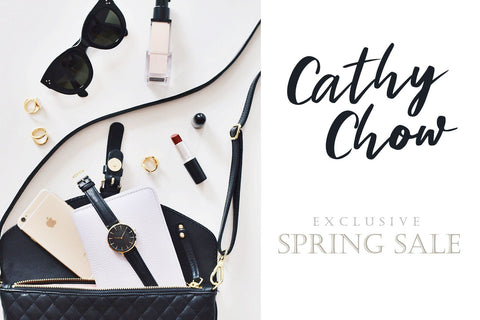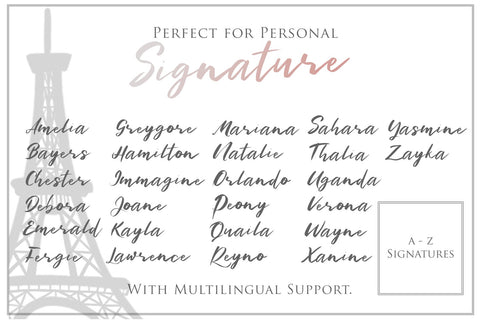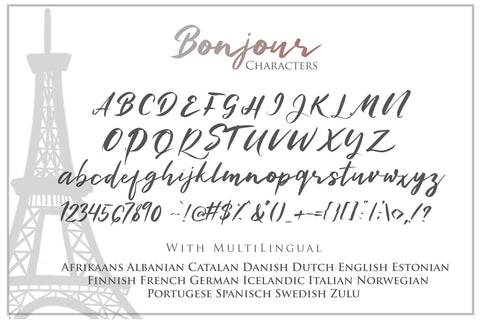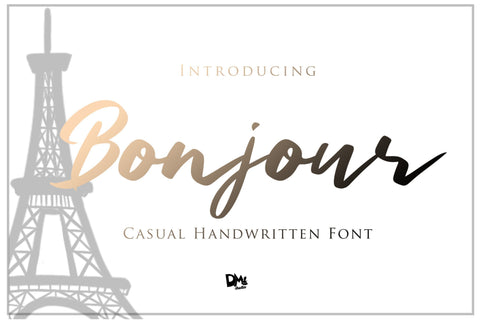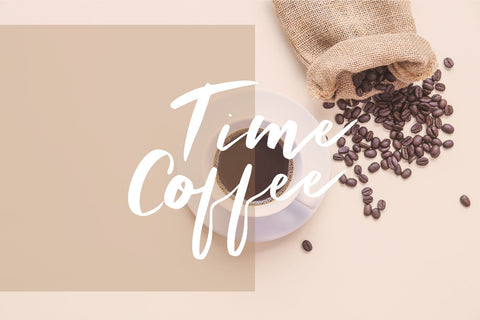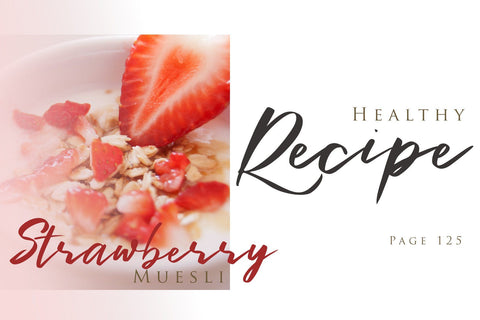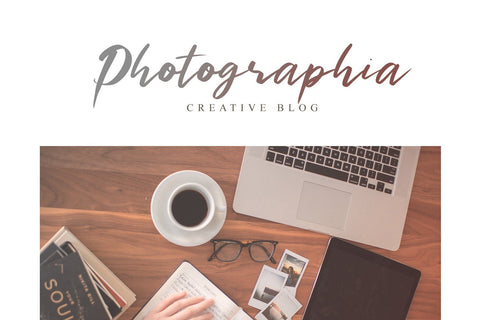
Bonjour - Casual Handwritten Font
Bonjour ! is a natural, simple and casual handwritten font.
Good choice to use for blog headers, magazine, posters, social media posts, quotes, branding, flyers, signatures, letters, and much more.
Bonjour features :
- Uppercases, lowercases
- Symbols
- Multilingual